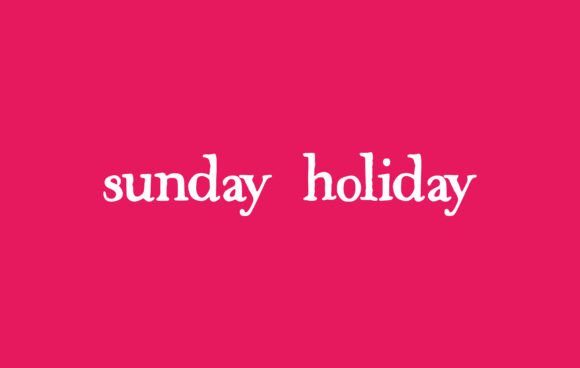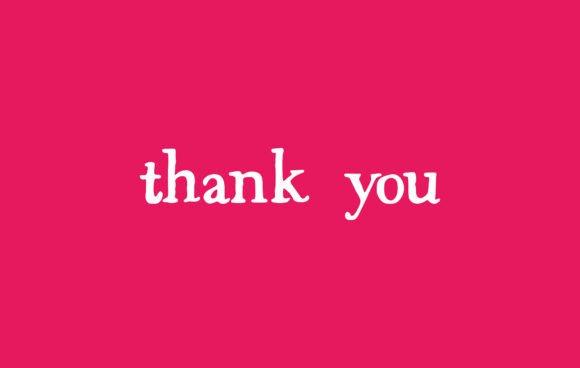
Discover the Perfect Companion for Your Creative Journey
Have you ever stared at a blank page, searching for the perfect font to bring your idea to life? The excitement of creation is a thrilling feeling, and the right font can make all the difference. As designers, we’re always on the lookout for that special something that elevates our work and sets it apart from the rest.
Meet the Arctic Explorer Font, a beautifully crafted handwritten font that’s sure to capture the essence of your creativity. With its romantic touch and expert design, this font is perfect for designers looking to add a personal touch to their projects. Whether you’re working on a magazine headline, social media campaign, or wedding invitation, the Arctic Explorer Font is an invaluable asset that will take your designs to new heights.
Arctic Explorer Font Key Features
- Font Family: Arctic Explorer Font is a unique, hand-drawn serif font designed to evoke the spirit of Arctic exploration.
- Character Count: The font contains 250 characters, including uppercase and lowercase letters, numbers, and punctuation marks.
- Unique Characteristics: Features a distinctive, hand-crafted feel with subtle imperfections and irregularities that give it a vintage, adventurous look.
Designer Review: Arctic Explorer Font
First impressions of the Arctic Explorer Font are that it’s a unique and captivating choice for any design project. ✨ The font’s bold and rugged style immediately evokes feelings of adventure and exploration. The character set is comprehensive, with a wide range of languages supported.
The font’s strengths lie in its versatility and adaptability. ✨ It works well for both digital and print applications, making it a great choice for designers who need a font that can handle different mediums. The font’s bold weight also makes it an excellent choice for headings and titles.
- Wide language support
- Comprehensive character set
- Works well for both digital and print applications
- Excellent for headings and titles
However, there are some limitations to consider. ⚠️ The font’s rugged style may not be suitable for all design projects, particularly those that require a more formal or traditional look. Additionally, the font’s bold weight can sometimes feel overwhelming, particularly in smaller text sizes.
Overall, the Arctic Explorer Font is a great choice for designers who are looking for a unique and adventurous font that can add some excitement to their projects. With its versatility and comprehensive character set, it’s a great addition to any designer’s toolkit.
Use the Arctic Explorer font to add a touch of adventure and exploration to your designs. Pair it with bold, bright colors to create a striking visual effect. Experiment with different font sizes and styles to create a sense of hierarchy and emphasis.
The Arctic Explorer font is perfect for:
- Adventure travel brochures and websites
- Outdoor apparel and gear marketing materials
- Science and nature documentaries and films
- Expl